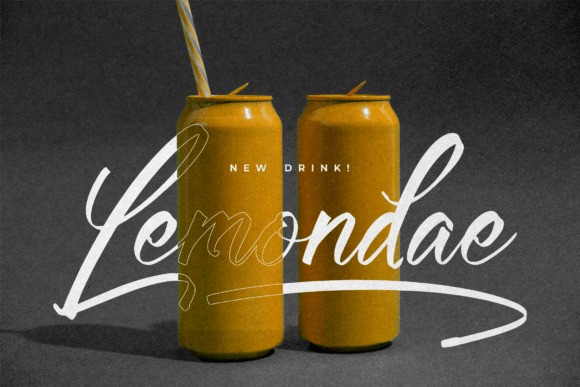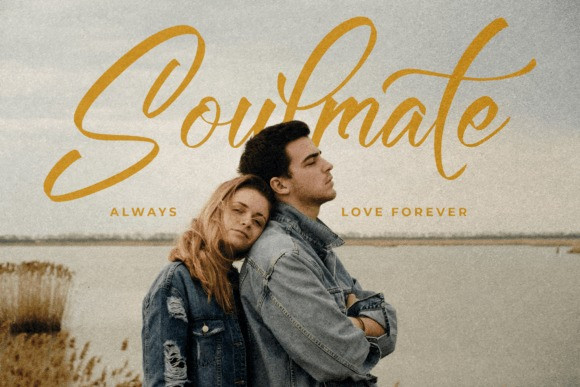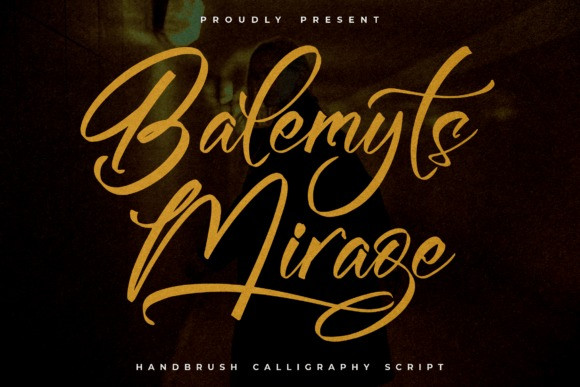
Balemyts Mirage Font
Balemyts Mirage Font is a handbrush calligraphy script font, perfet for a variety of projects such as logos, branding projects, homeware designs, product packaging, mugs, quotes, posters, shopping bags, t-shirts, book covers, name cards, invitation cards, greeting cards, labels, photography, watermarks, special events, and all your other lovely projects that need a beautiful script taste.